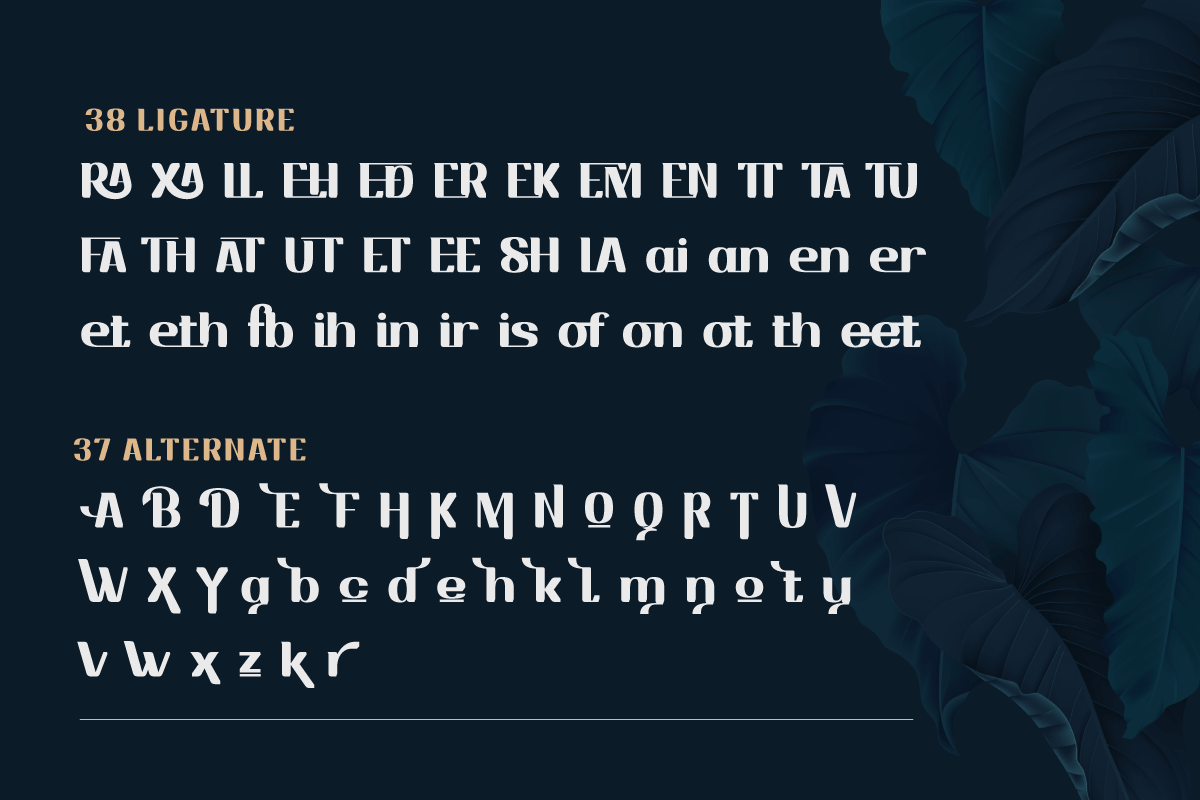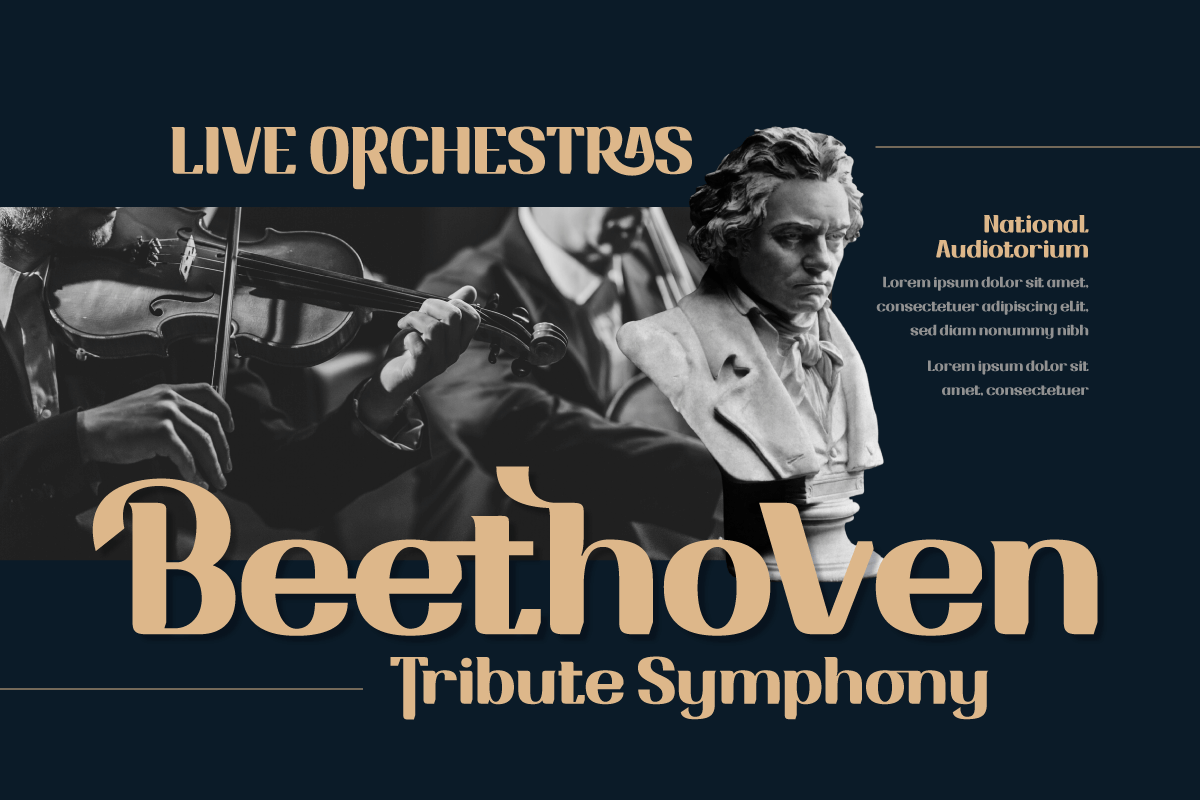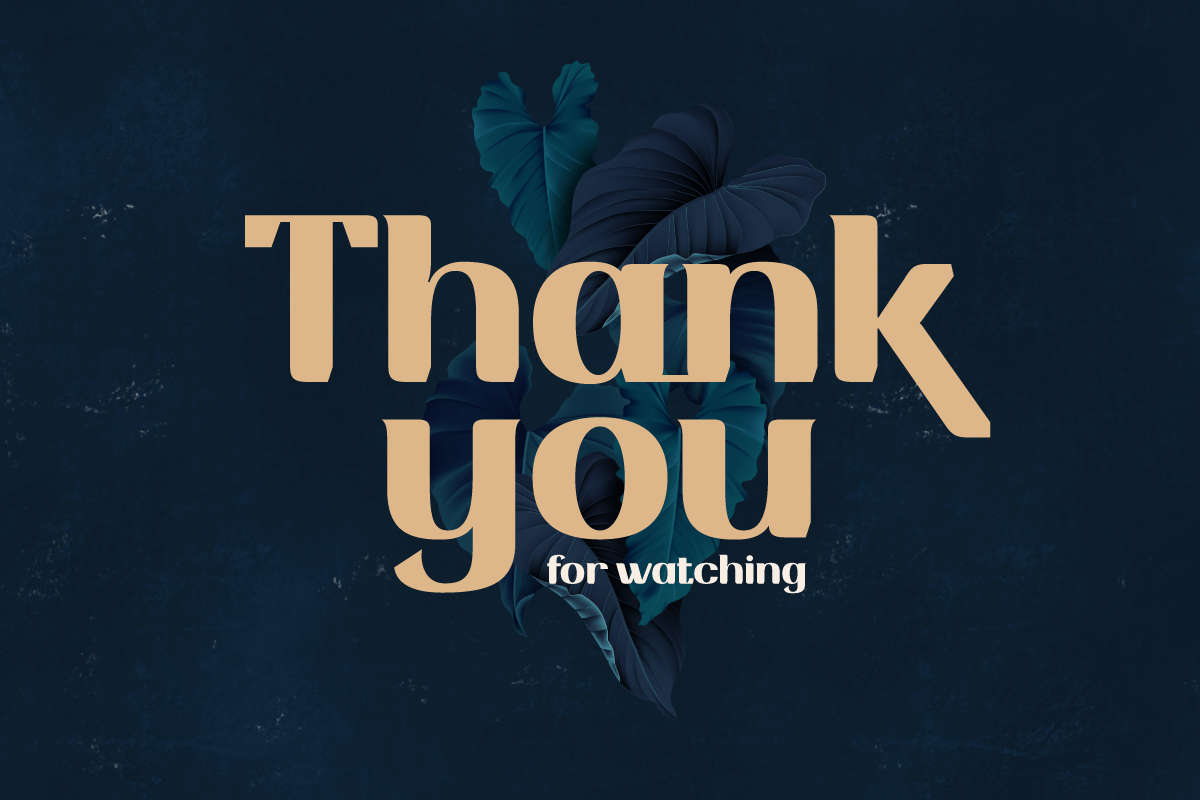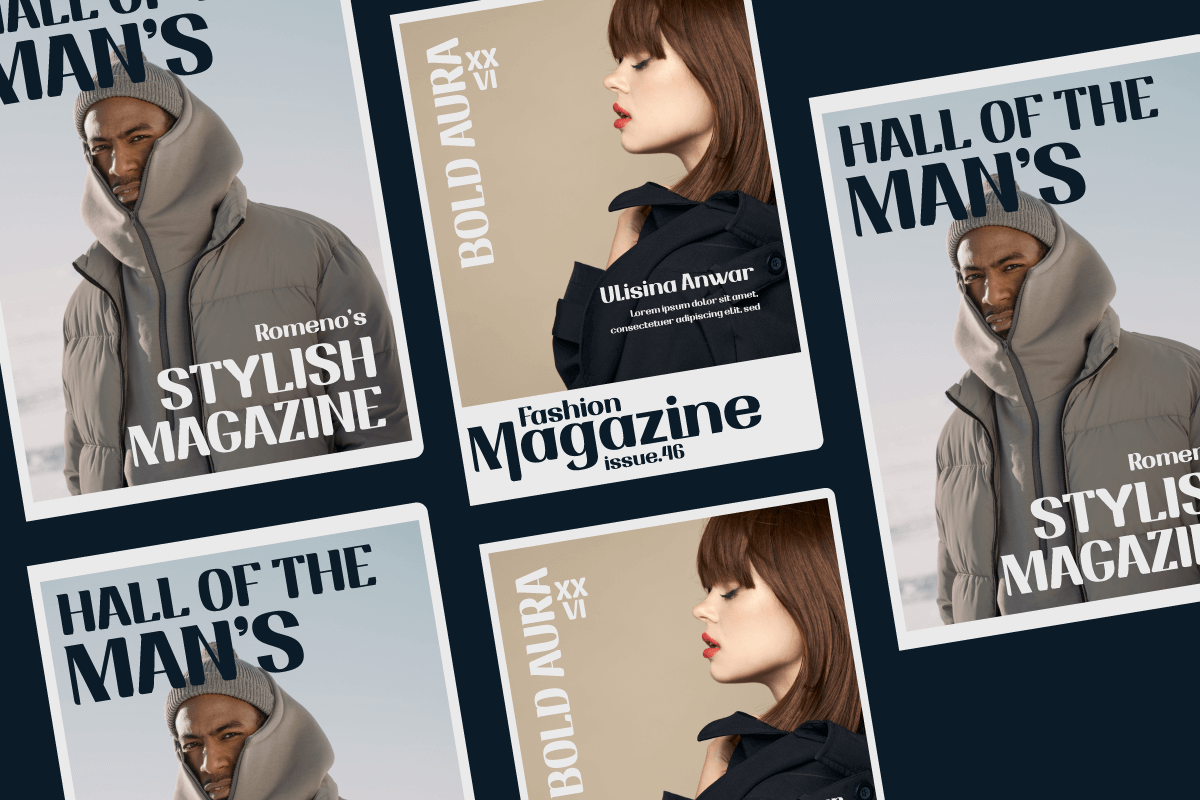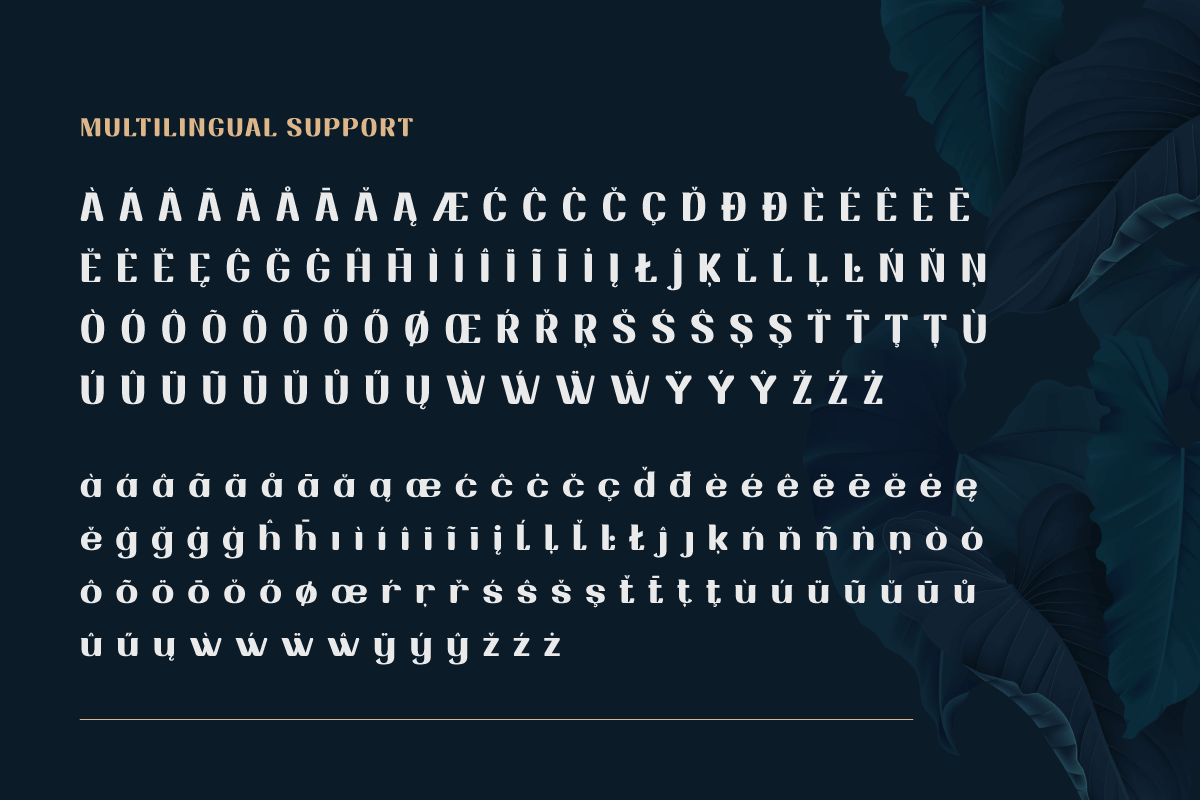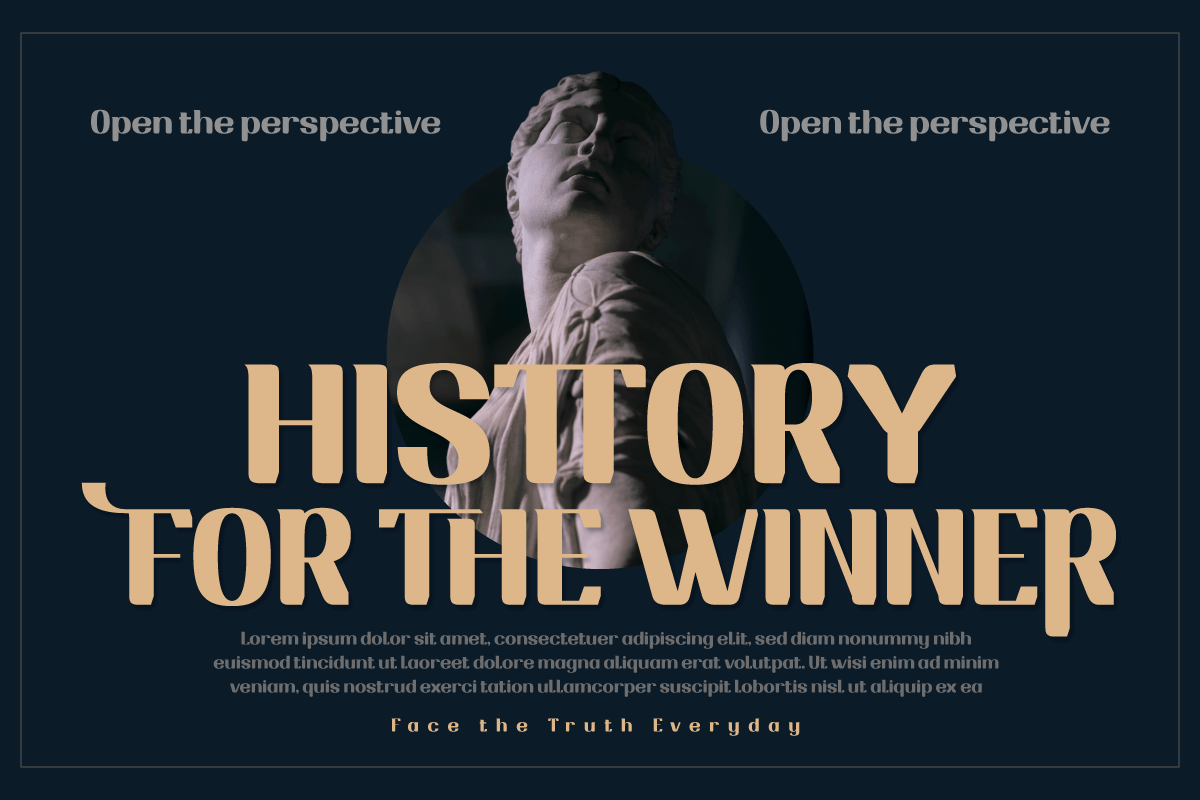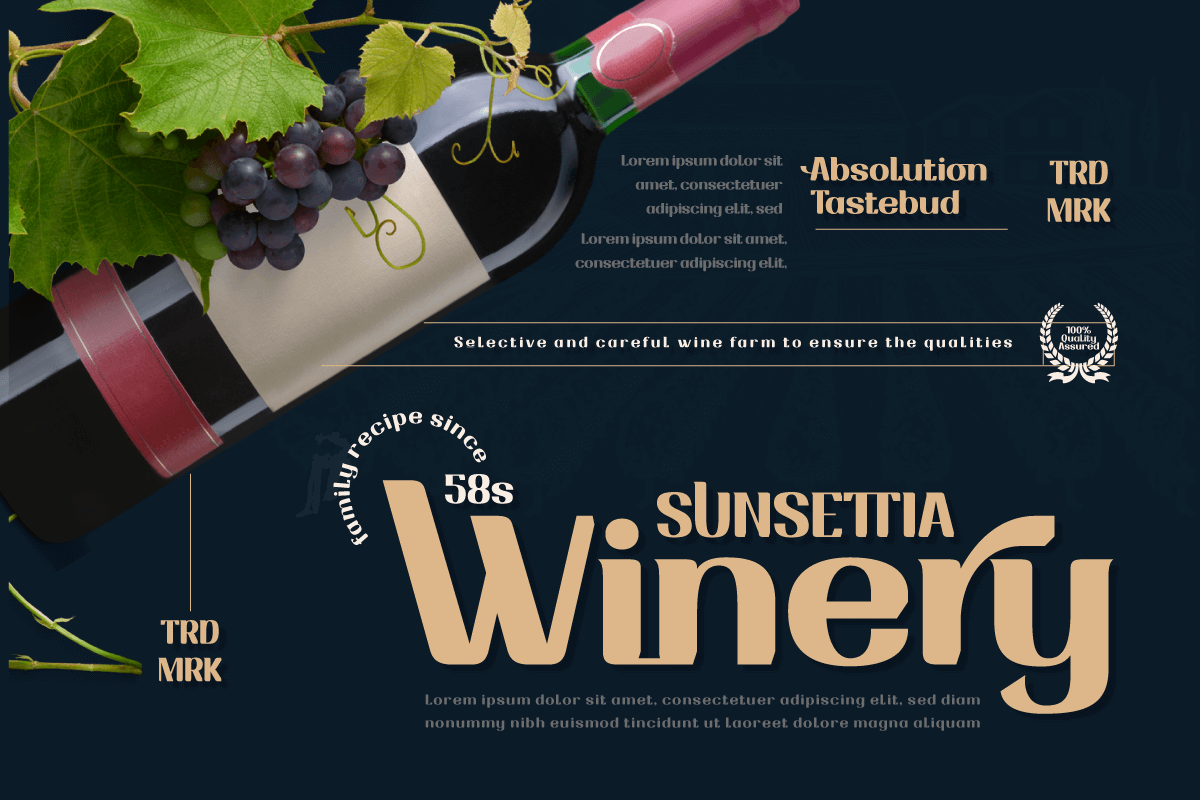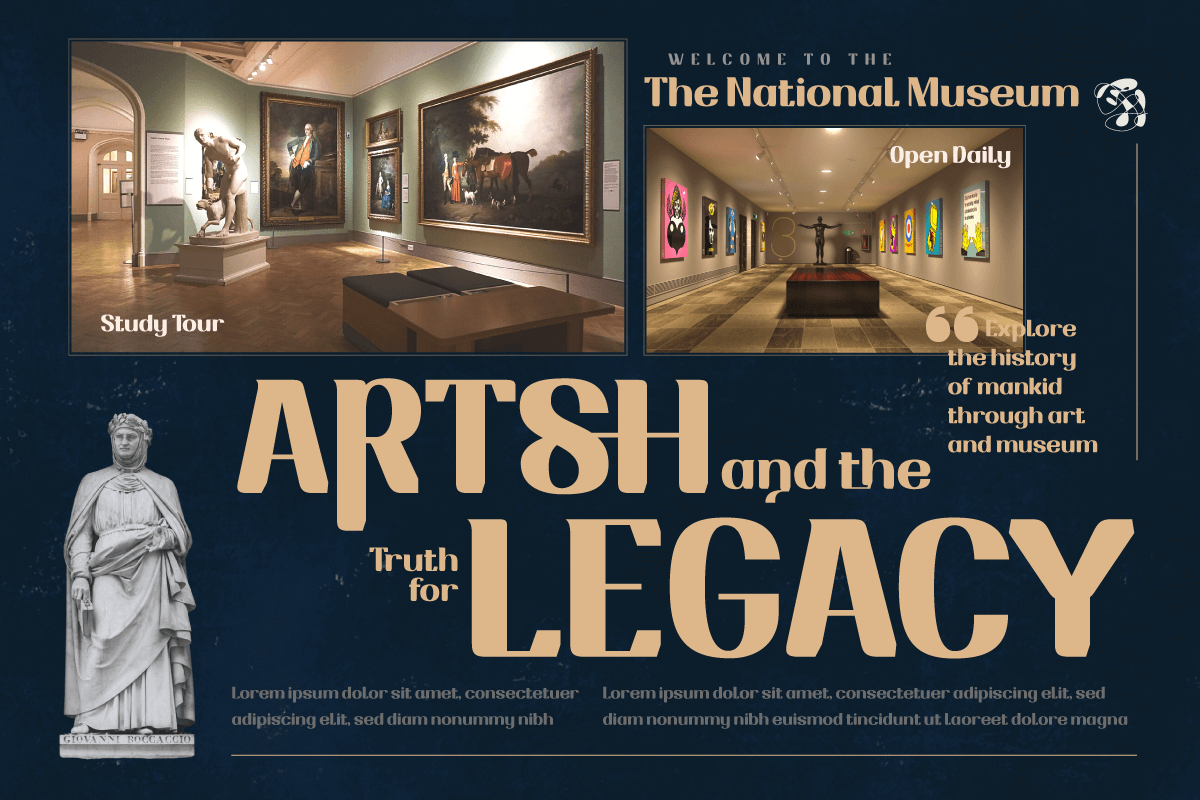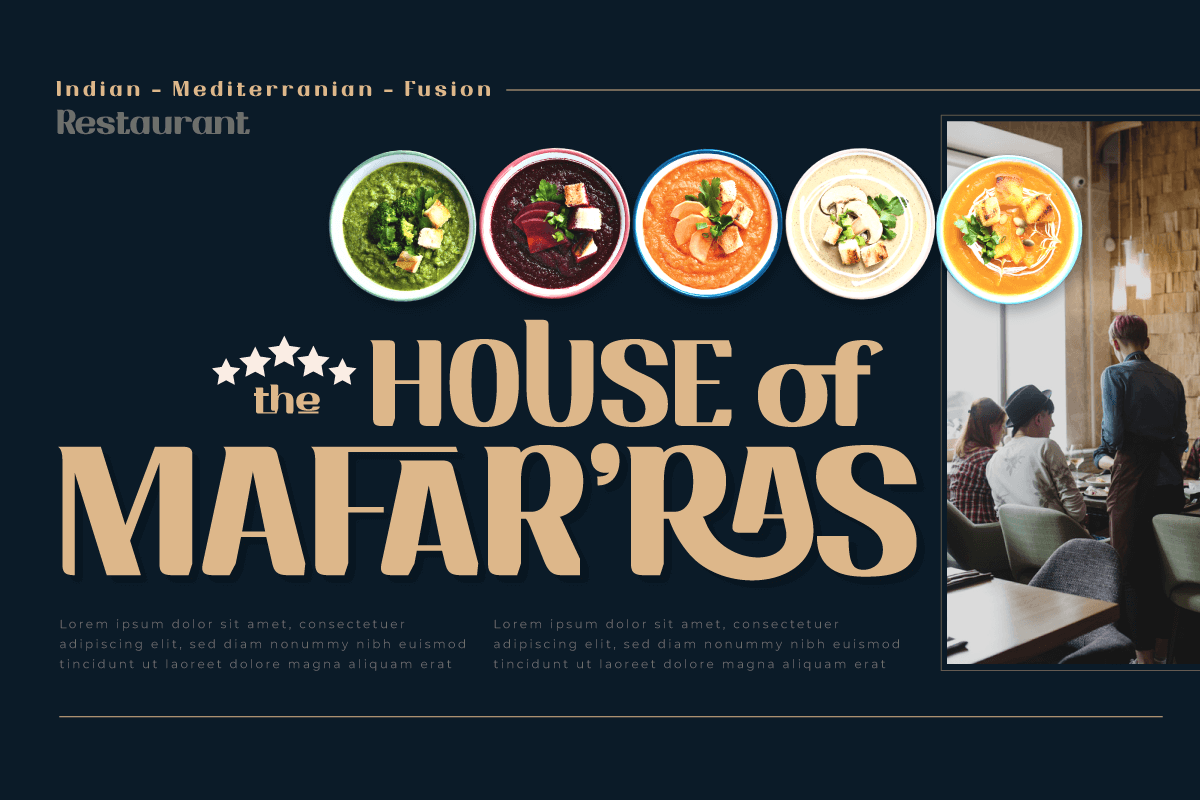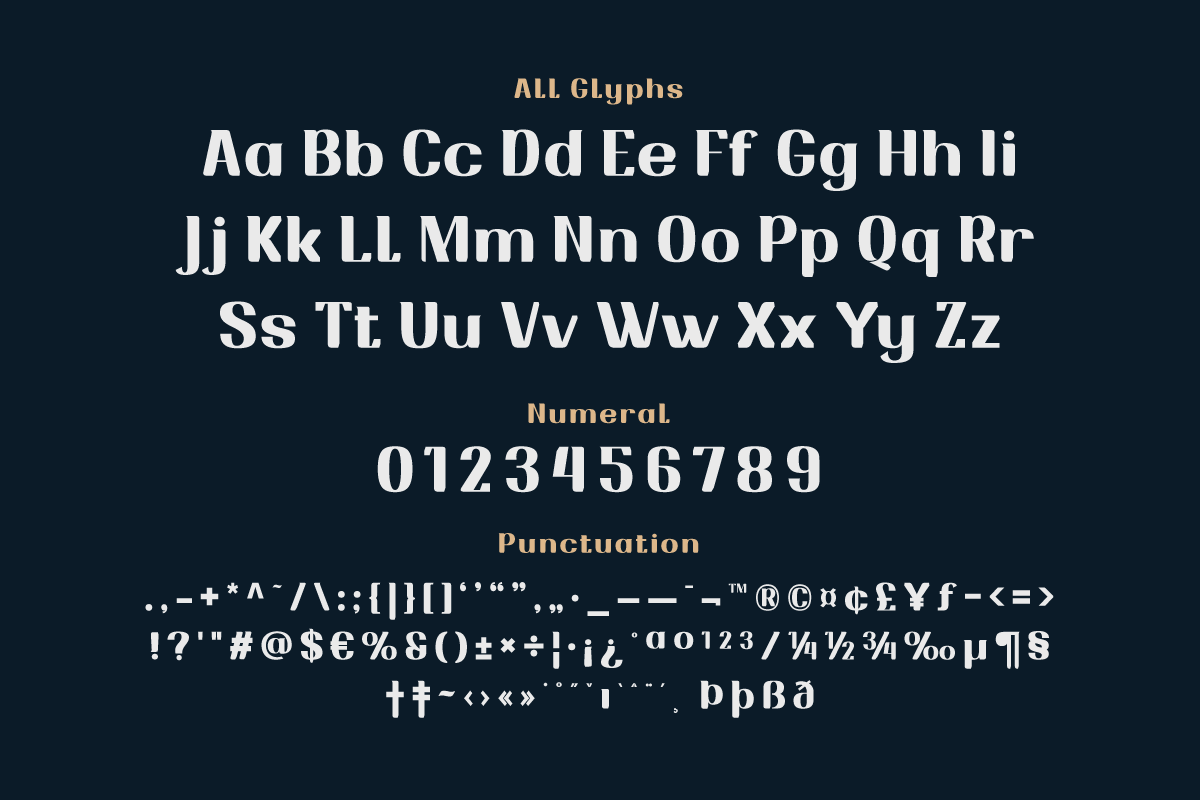
Drafbink | Serif Classic Modernism
Say hello to classic elegance with the Draftbink font. With a compelling classic serif theme, this font is the perfect choice for creating projects with an elegant touch of classic modernism.
Draftbink brings powerful features to give you unlimited flexibility and creativity. The ligature and alternate features allow you to combine interesting characters and create unique and attractive typography compositions.
Not only that, Draftbink also supports multilingualism, so you can easily adapt this font to various languages. This opens up the opportunity to reach a wider audience and increase the attractiveness of your project.
With its distinctive classic serif characteristics, Draftbink gives your design an elegant and bold impression. Each letter is carefully designed to display stunning beauty and sharpness.
- Alternate, Ligature
- Fonts include Multilingual support